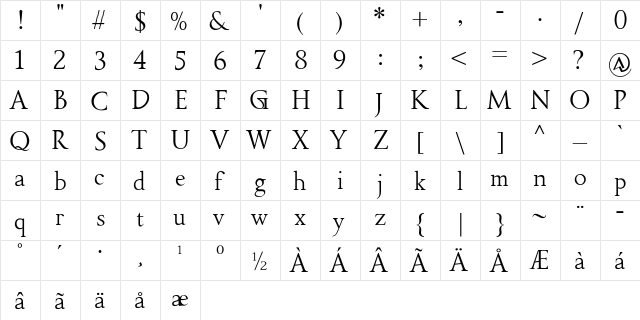
Fipty Serif Regular
| Foundry | Emanesdsign |
| Designer | Emanes Dsign |
Design Context for Fipty Serif Typeface
Fipty Serif carries the refined structure of traditional serif typography, with bracketed terminals and considered proportions that communicate credibility and craft.
Pro Tip: Set Fipty Serif with slightly loose tracking in headlines to let each letterform's detail read clearly at display sizes.